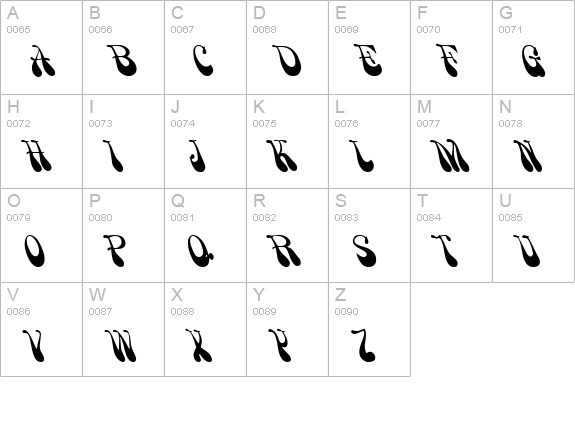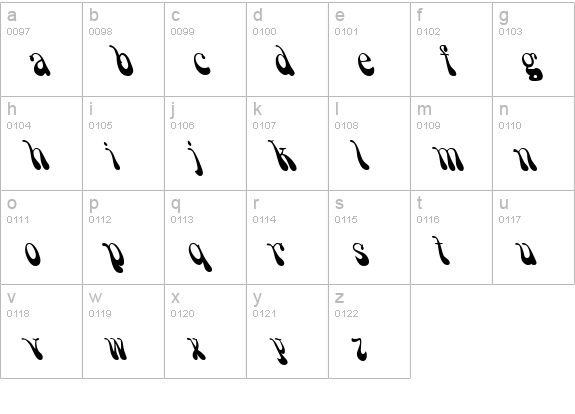
Psychadelic Regular Font Details
Psychadelic Regular is the standard, neutral variant in the Psychadelic typeface family \xE2\x80\x94 well suited to general body text, paragraphs, and standard typographic work.
The Psychadelic Regular font is a whimsical and eye-catching typeface that will transport your designs to a world of vibrant colors and psychedelic patterns. With its playful and dynamic letterforms, this font is perfect for projects that require a touch of retro flair and a hint of whimsy. Best of all, the Psychadelic Regular font is available for free download at FontsMarket.com. Whether you're working on a poster, website, or social media graphic, this font is sure to make a statement and leave a lasting impression on your audience. Embrace the free-spirited energy of the Psychadelic Regular font and let your creativity soar to new heights.